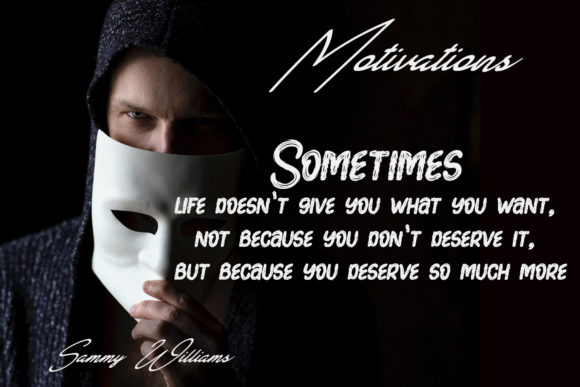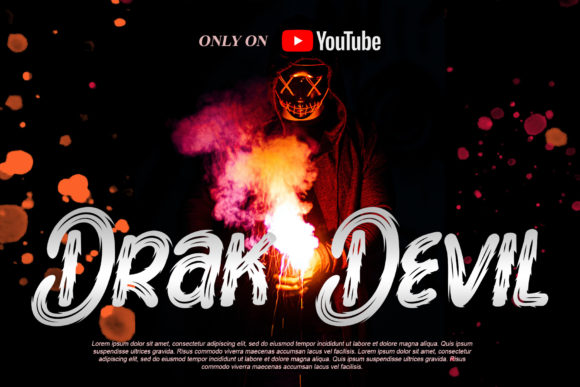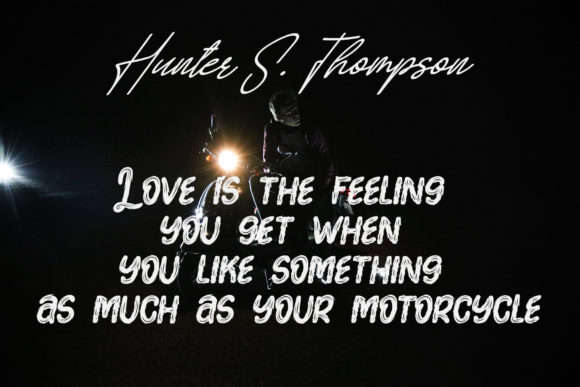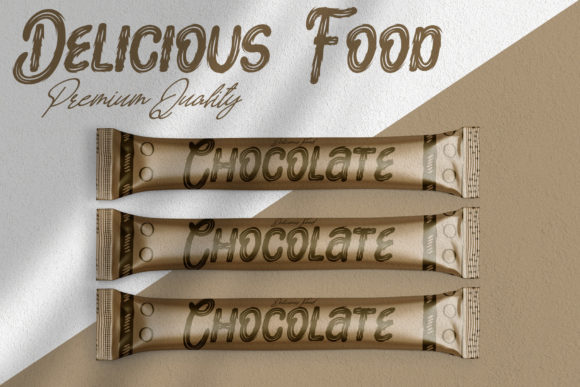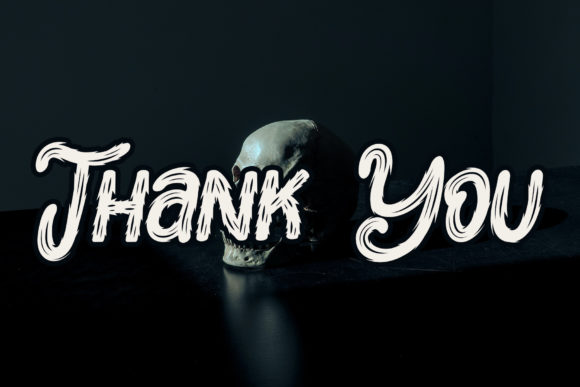
The Quest for the Perfect Font: Discovering Beloved
I’ll never forget the time I was working on a project for a client’s t-shirt design. I had the concept, the colors, and the graphics all nailed down, but I was stuck on one thing: the font. I scrolled through page after page of Google Fonts, tried out a dozen different options, but nothing seemed quite right. That was until I stumbled upon Beloved, a cool, brushed, and fun-looking display font that instantly elevated my design.
An Honest Review of Beloved Font
So, what makes Beloved so special? Let’s dive into the good stuff and a few quirks I’ve discovered.
• ✨ Unique, hand-brushed look that’s perfect for adding a personal touch to designs
• ✅ Highly legible, even at larger sizes
• 🎉 Extensive character set, including support for multiple languages
• 💡 OpenType features, such as stylistic alternates and glyphs, for added creativity
• 🤔 Limited suitability for body text or smaller font sizes, due to its display-focused design
• ⚠️ Some users may find the font’s distressed look too informal for certain projects
The Designer Inspiration Behind Beloved
While the true story behind Beloved’s creation may be unknown, it’s easy to imagine a designer with a passion for hand-brushed typography and streetwear culture. Perhaps they were inspired by the urban landscape, graffiti, and the DIY ethos. Whatever the inspiration, Beloved has undoubtedly captured the hearts of designers and crafters alike.
What type of projects is Beloved best suited for? Beloved is ideal for designs such as t-shirts, sportswear, logos, advertisements, clothing, and more.
Can I use Beloved for body text or smaller font sizes? While possible, Beloved is primarily designed for display purposes and may not be the best choice for body text or smaller font sizes.
Does Beloved support OpenType features? Yes, Beloved supports OpenType features, including stylistic alternates and glyphs, which can enhance your designs.